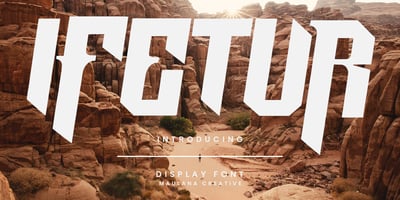
MC Ifetur Font Family was designed by Gilang Maulana and published by Maulana Creative. MC Ifetur contains 1 styles and family package options. Ifetur display font. Bold stroke, fun character with a bit of ligatures and alternates. To give you an extra creative work. Ifetur font support multilingual more than 100+ language. This font is good for logo design, Social media, Movie Titles, Books Titles, a short text even a long text letter and good for your secondary text font with script or serif. Make a stunning work with Ifetur font.Cheers,Maulana Creative